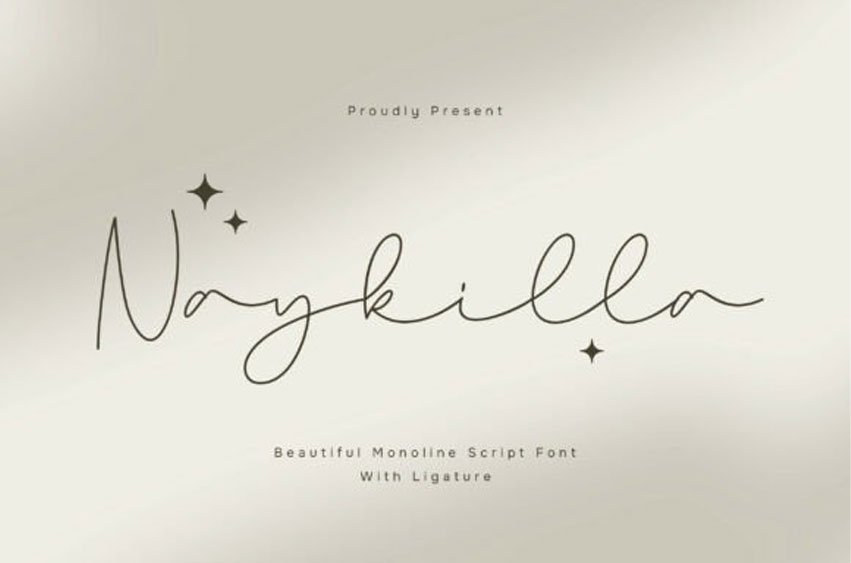
Naykilla Font
Naykilla Font is a beautiful monoline script font designed to bring a smooth, elegant, and modern handwritten style to your typography.
With its clean monoline strokes, flowing curves, and balanced letterforms, Naykilla creates a graceful and refined look that feels both stylish and natural.